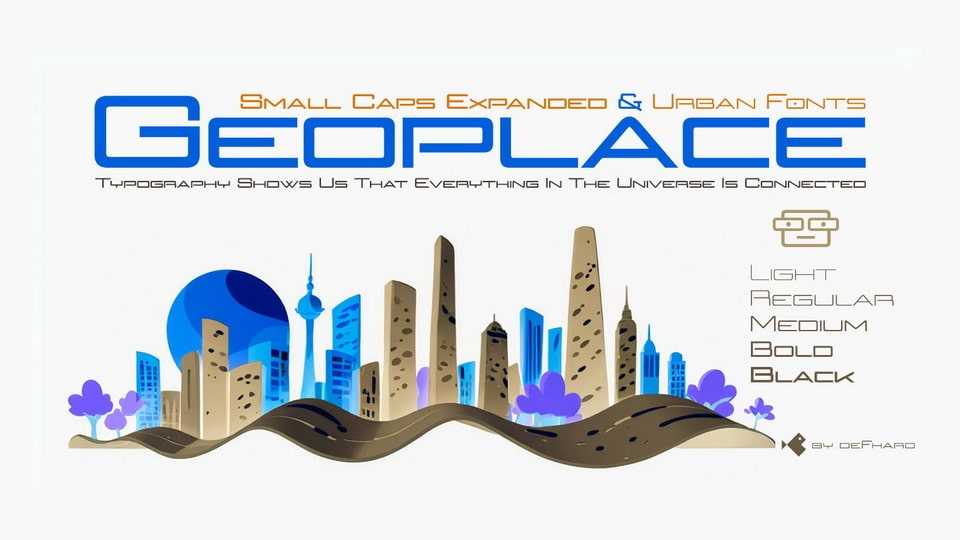
Download Geoplace Small Caps font, a versatile typeface that combines aesthetic appeal and functionality, the expanded proportion creates a feeling of spaciousness and modern elegance, and a unique and cohesive aesthetic.
Designer: Fernando Haro